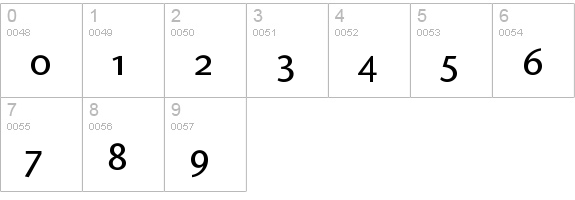
StoneSansSCEF-Medium Font Details
StoneSansSCEF-Medium is a balanced, medium-weight variant in the StoneSansSCEF typeface family \xE2\x80\x94 well suited to sub-headlines, navigation, and balanced editorial work.
StoneSansSCEF-Medium is a versatile and modern font that strikes the perfect balance between professionalism and creativity. With its clean lines and sleek design, this typeface is ideal for a wide range of projects, from branding and advertising to web design and print materials. This font is a part of the StoneSans family, known for its clarity and readability across various platforms. StoneSansSCEF-Medium offers a bold yet approachable appearance that commands attention without overwhelming the viewer. The best part is that StoneSansSCEF-Medium is available for free download at FontsMarket.com. Whether you're a designer looking to add a fresh touch to your projects or a business owner seeking a distinctive font for your branding, this typeface is a fantastic choice. Download StoneSansSCEF-Medium today and elevate your designs with its sophisticated and timeless appeal.